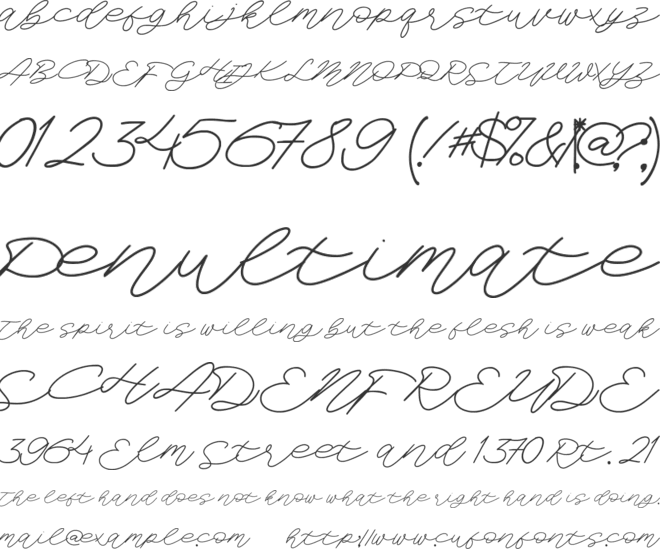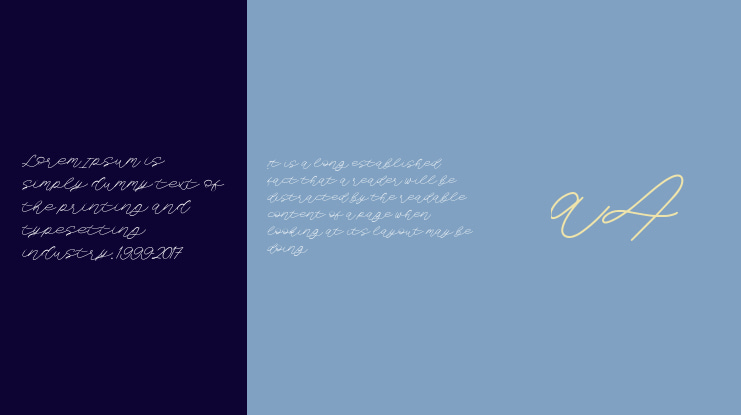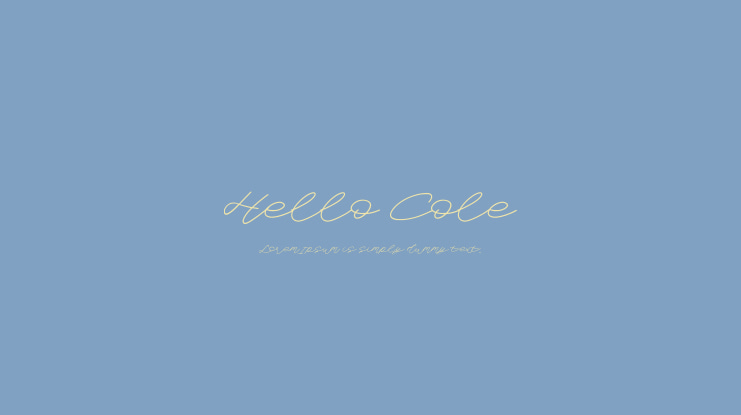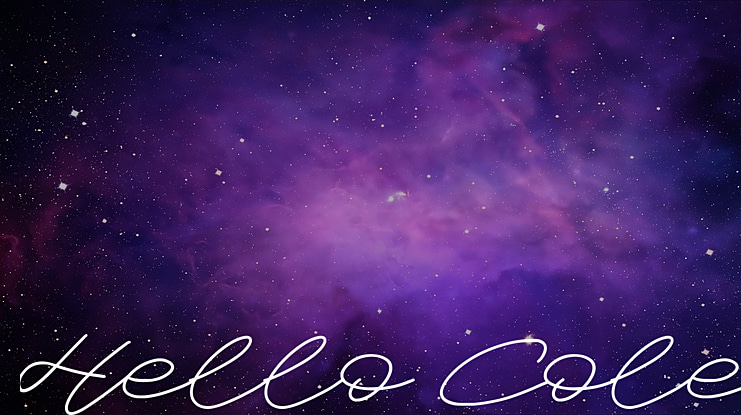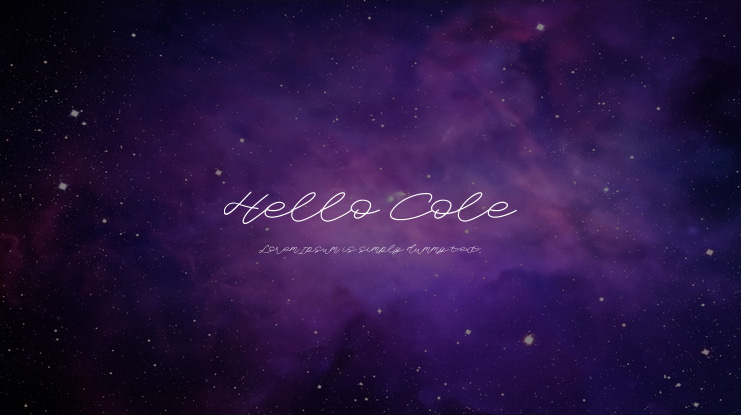
Hello Cole Font
Introducing Hello Cole is a Monoline Script Font.
Hello Cole can be used for wide ranges of application, such as wedding design, branding project, logo, poster, name card, invitations, social media posts, and others.